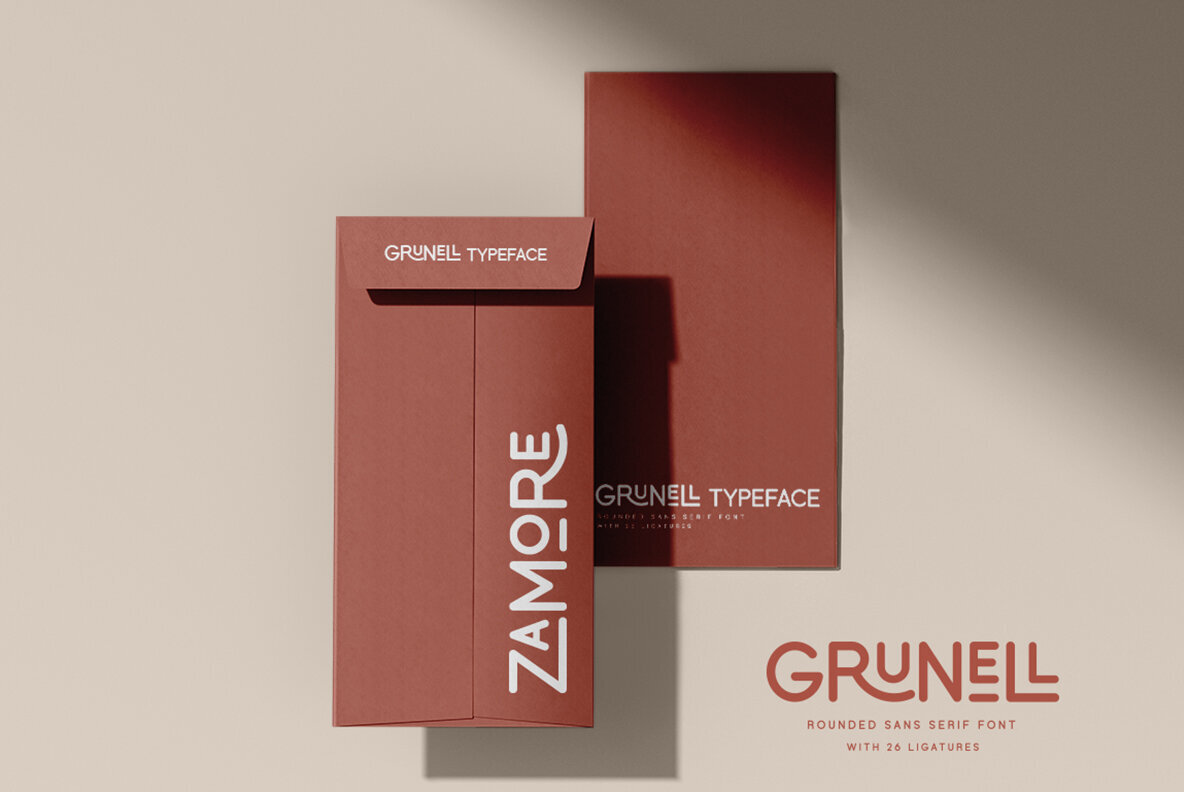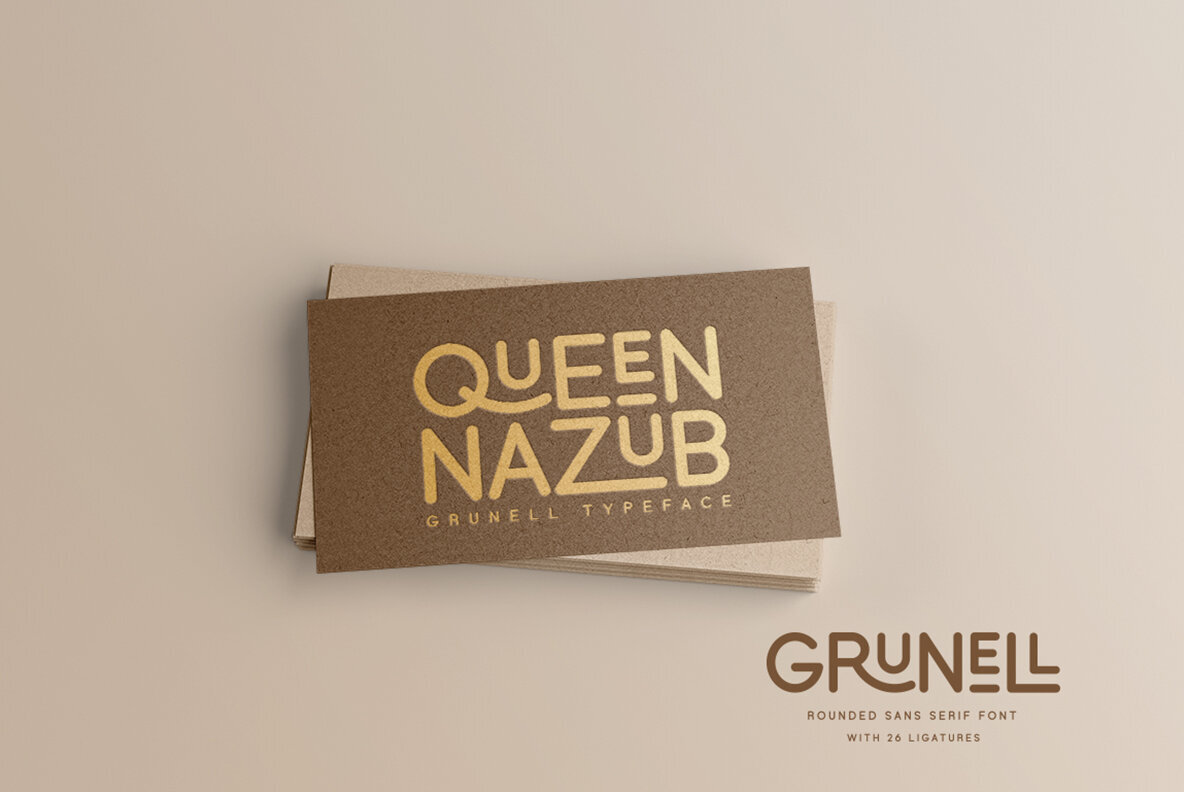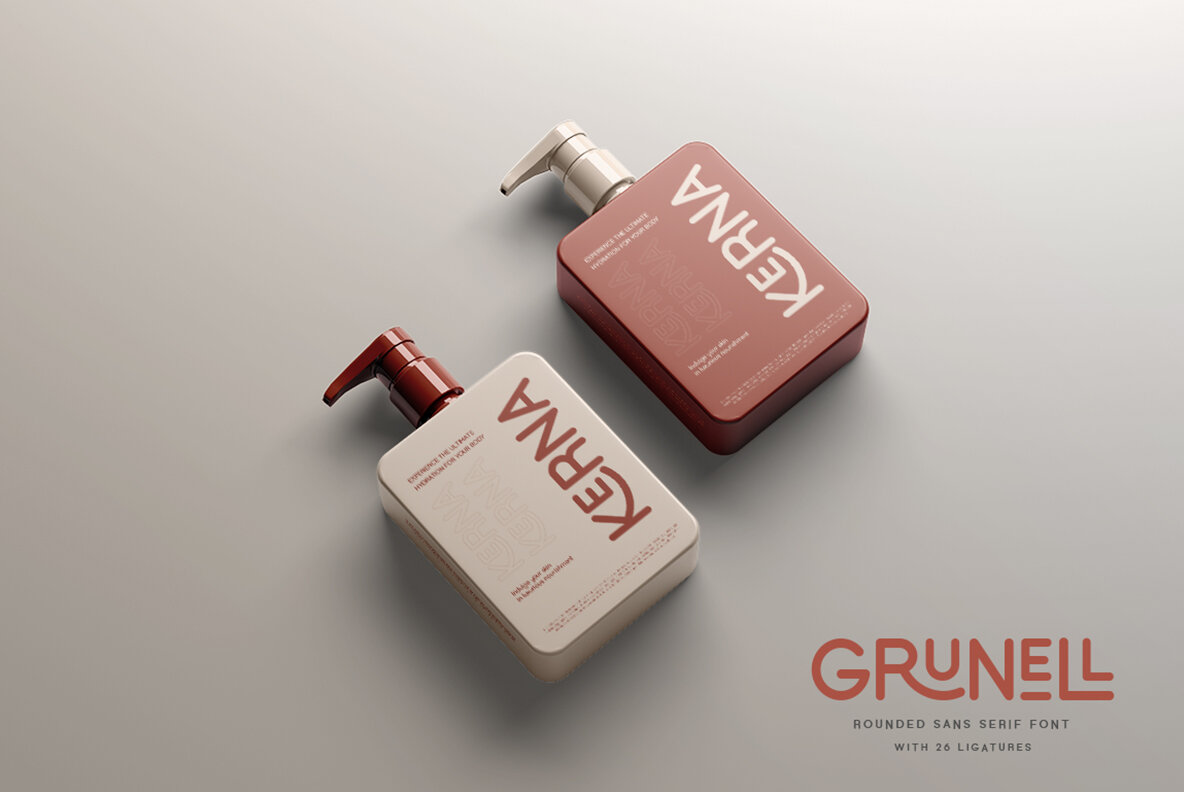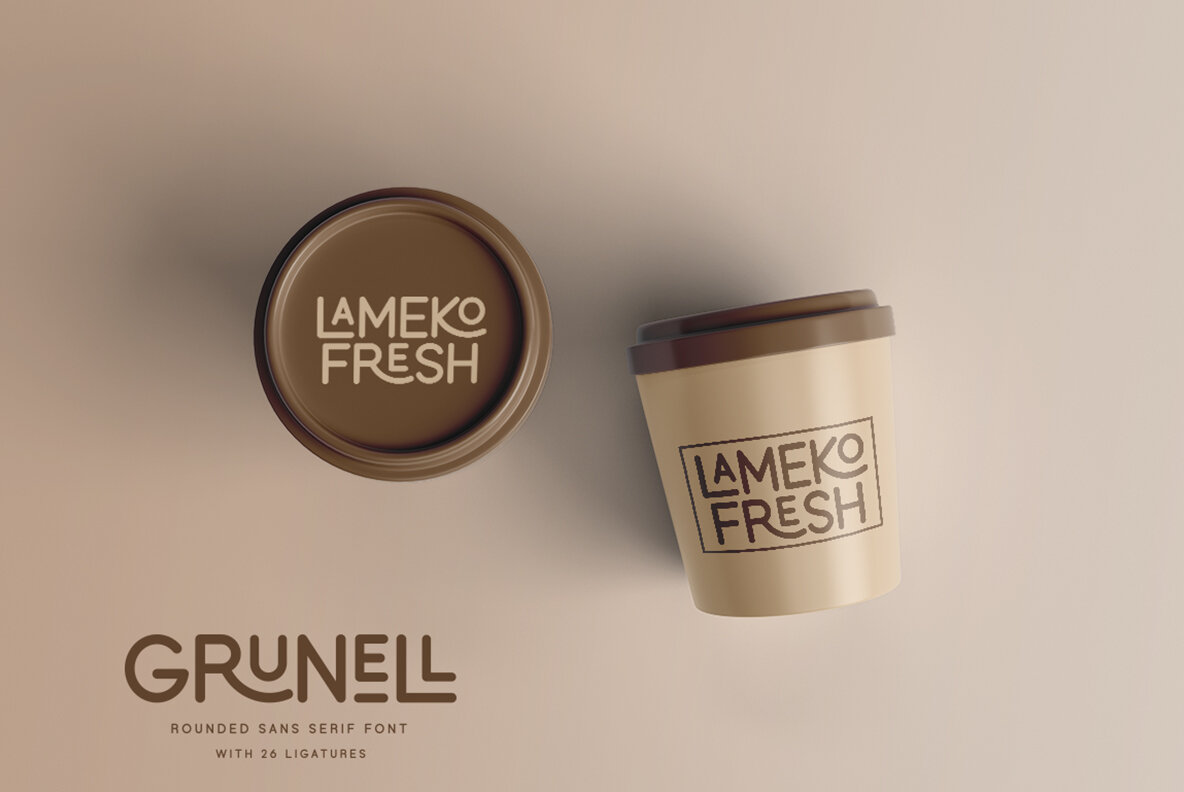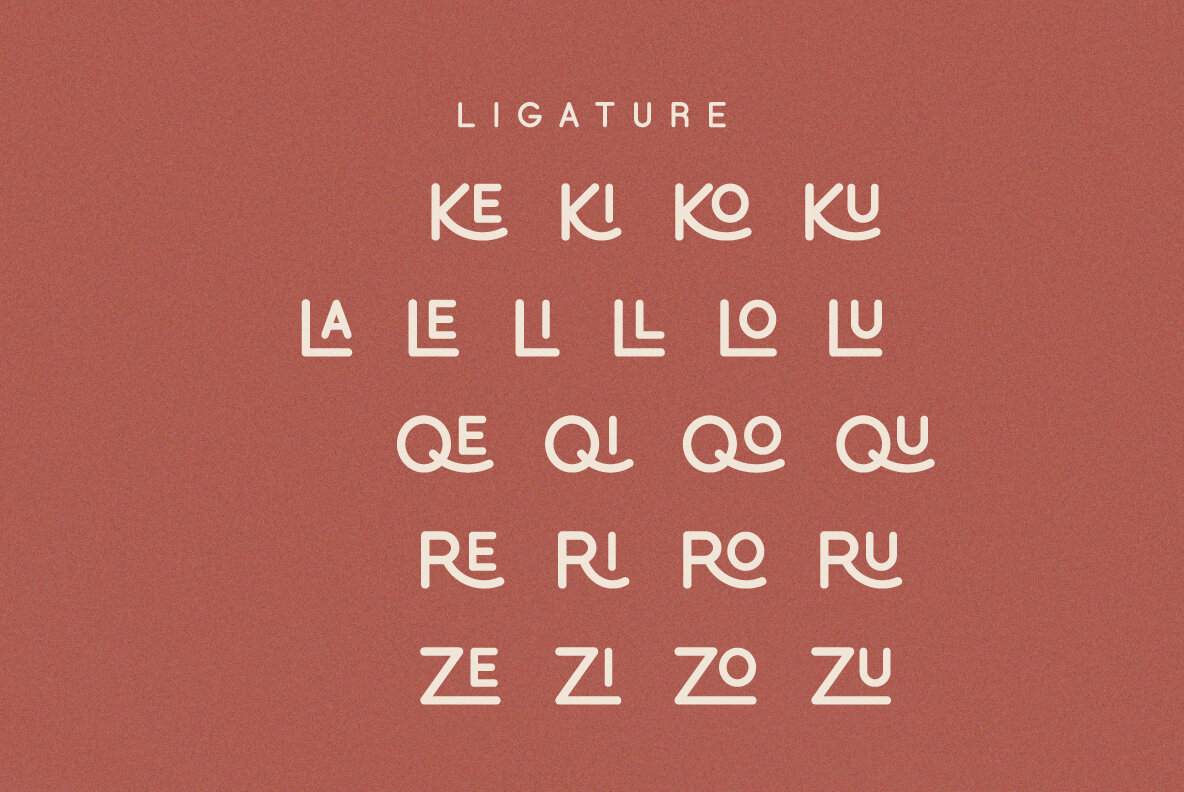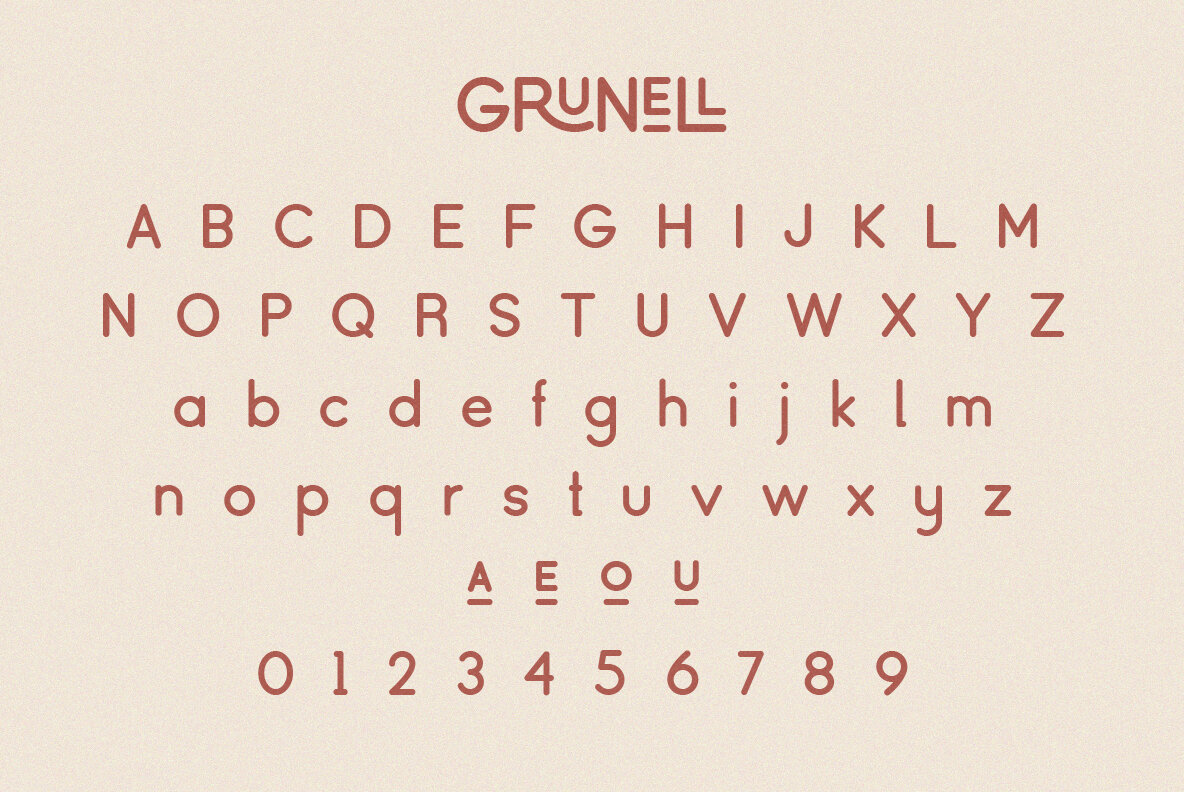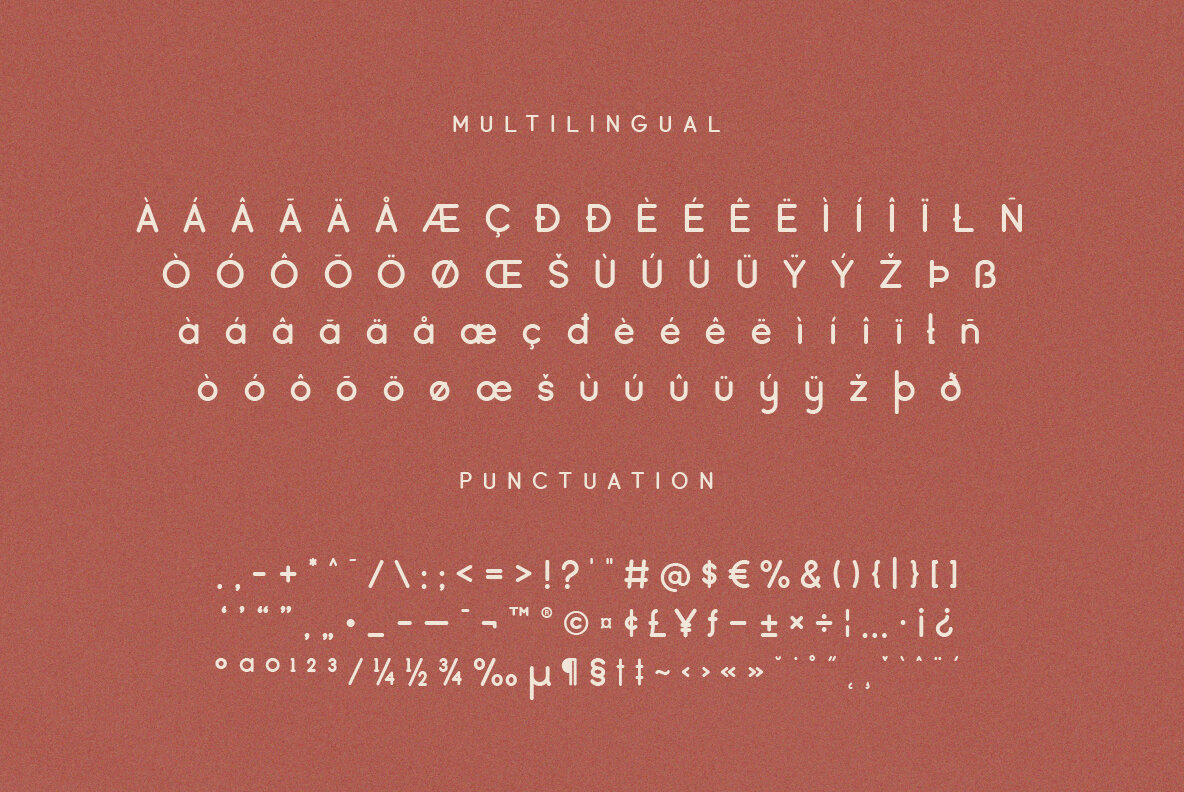
Grunell Font
Grunell is a rounded sans serif font that encapsulates a modern and friendly aesthetic. With its collection of 26 unique ligatures, this font allows for both creative and visually appealing typographic compositions. Featuring clean and legible letterforms, Grunell is well-suited for both digital and print applications. Grunell can be used for multiple languages, including Afrikaans, Basque, Breton, Catalan, Danish, Dutch, English, Finnish, French, Gaelic (Irish, Scots), German, Icelandic, Indonesian, Irish, Italian, Norwegian, Portuguese, Saami, Spanish, Swahili, and Swedish.Grunell: A Modern Rounded Sans Serif